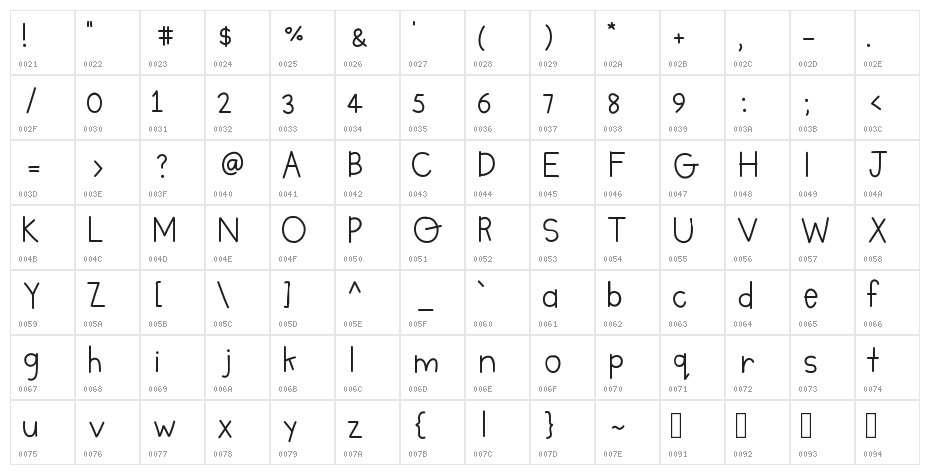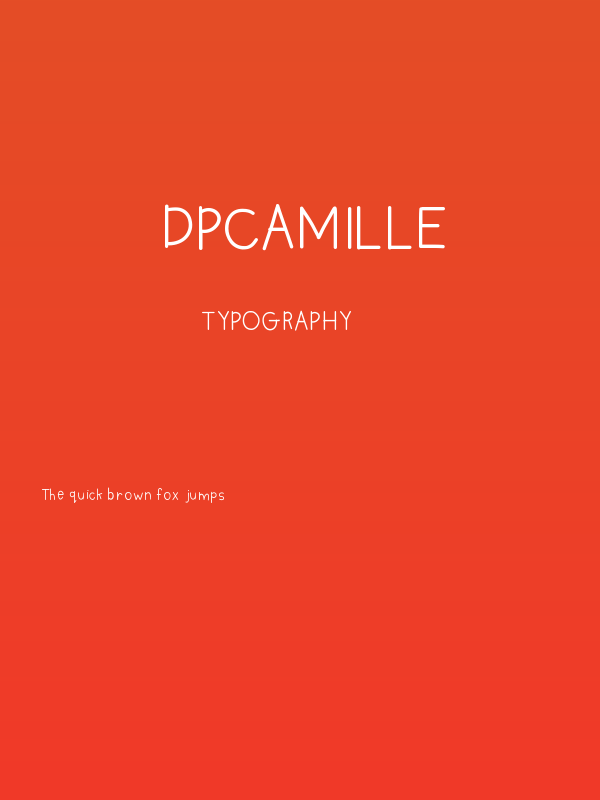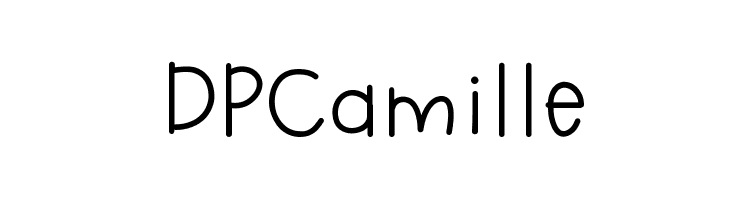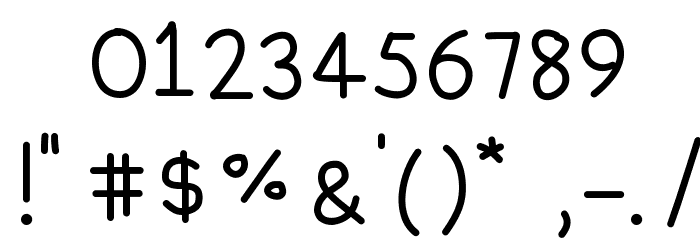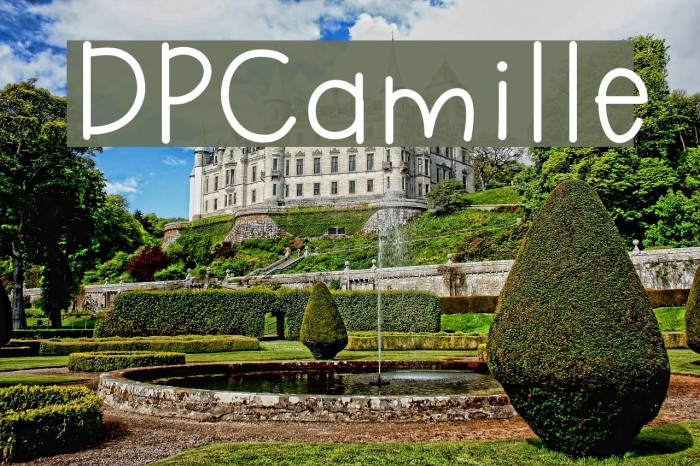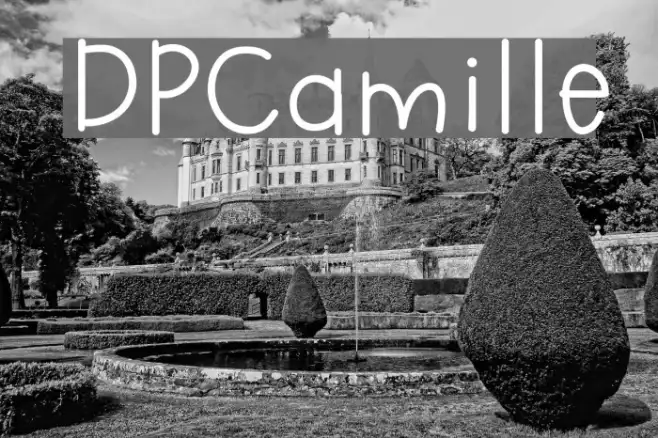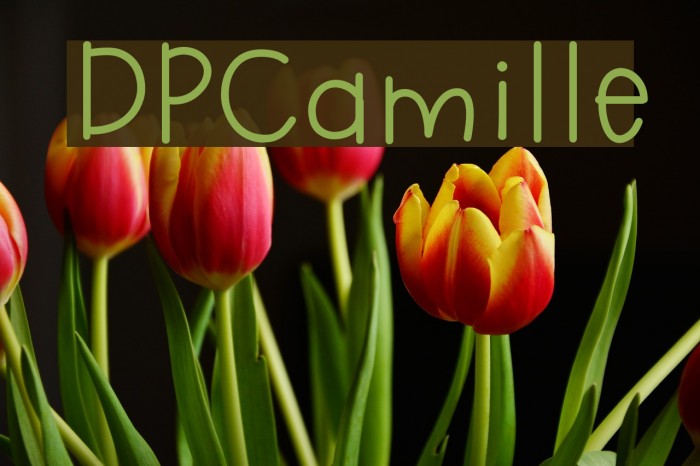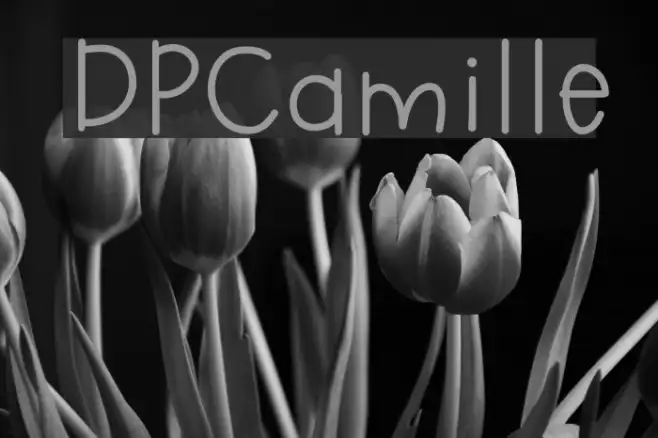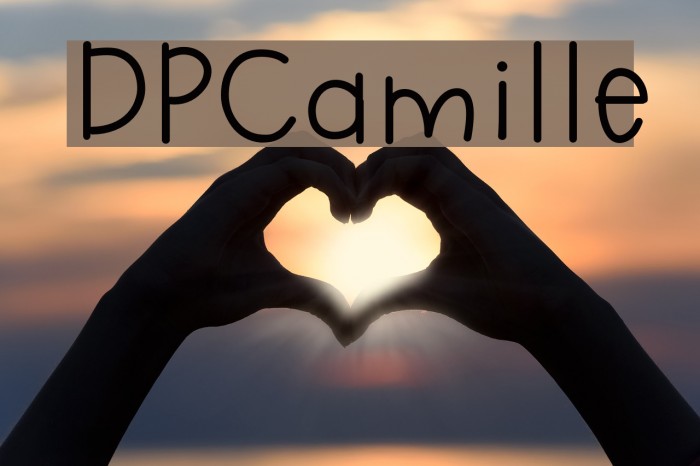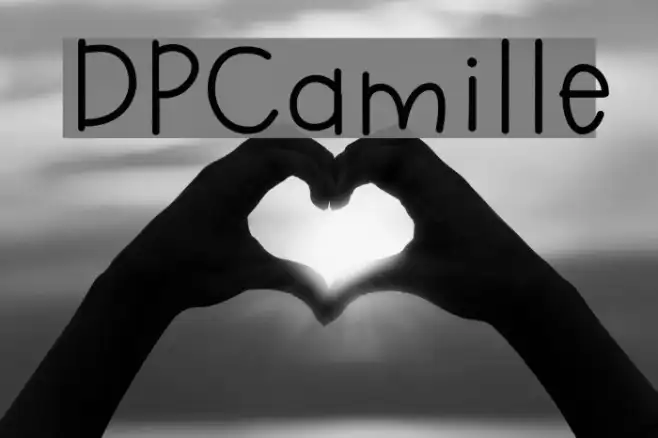
DPCamille Font
DPCamille Description
This font features a playful and casual handwritten style, characterized by its rounded and slightly irregular letterforms. The uppercase and lowercase letters maintain a consistent flow, with a friendly and approachable appearance. The numbers and special characters follow the same style, ensuring uniformity across all glyphs. The font's simplicity and clarity make it highly readable, while its unique charm adds a touch of personality to any text.
| Proposed Projects | Ideal for children's books, casual invitations, greeting cards, and playful branding projects. |